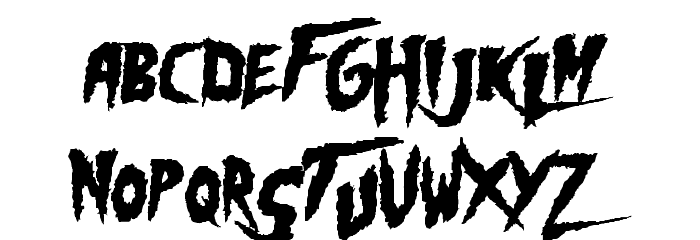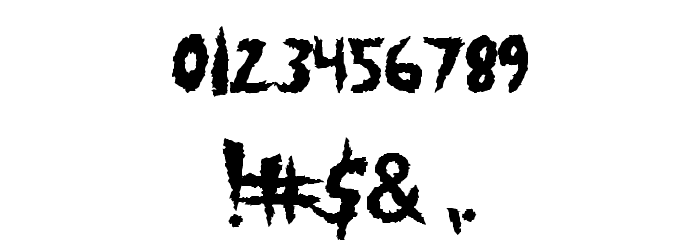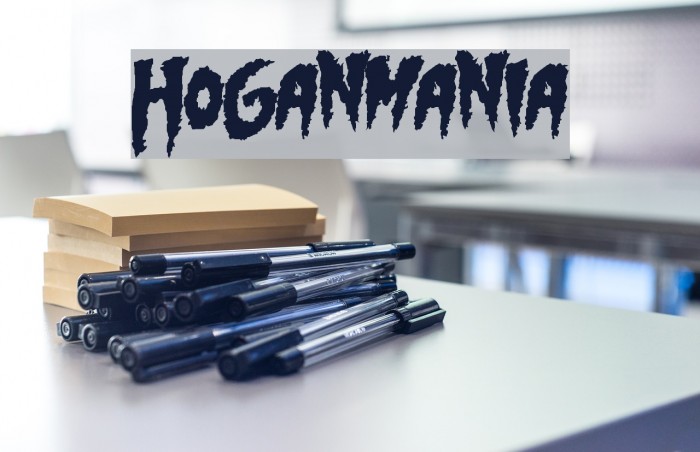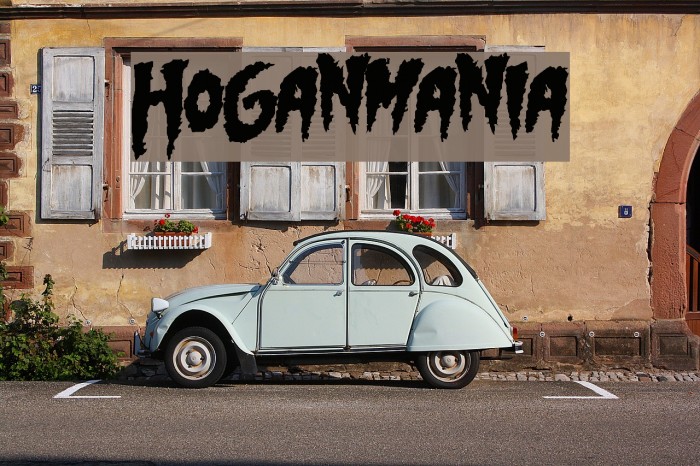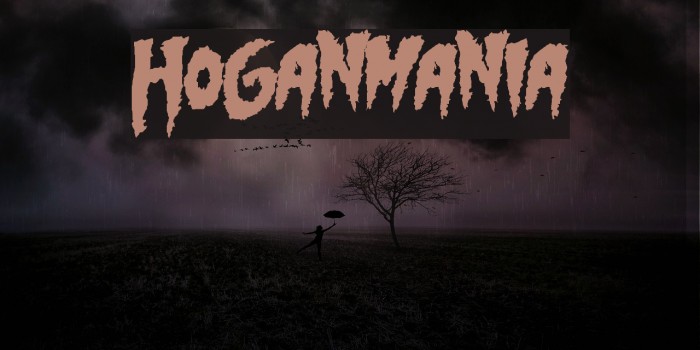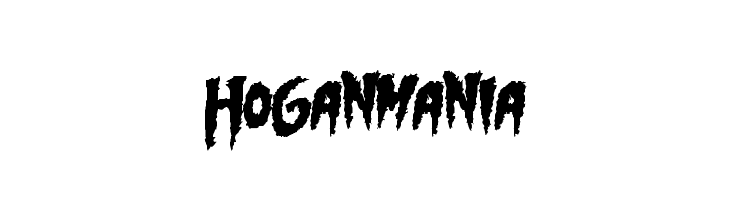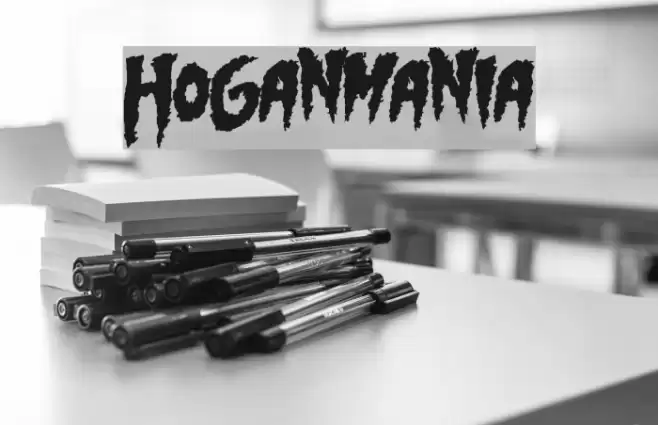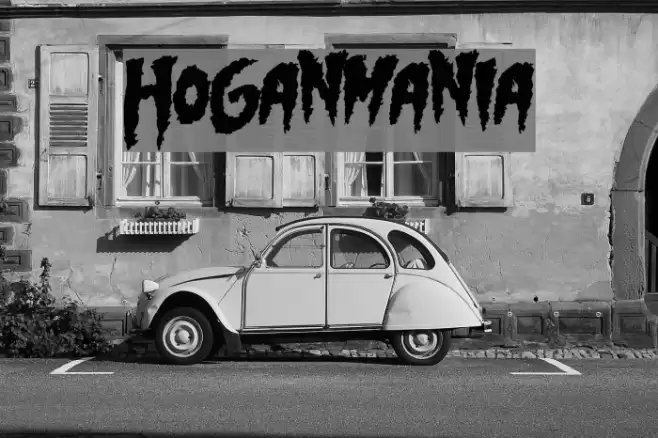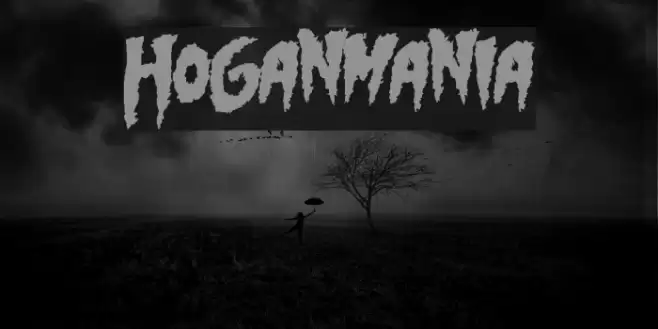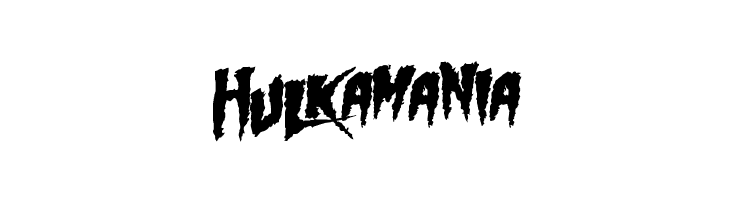
HoganMania Font
This font exudes a bold and energetic presence, characterized by its sharp, jagged edges and dynamic strokes. The letters are designed with a sense of movement and aggression, reminiscent of graffiti or street art styles. Each character is uniquely crafted, with varying stroke thickness that adds to the font's raw and edgy appeal. The uppercase and lowercase letters maintain a consistent style, while the numerals and special characters complement the overall aesthetic. This font is ideal for projects that require a strong, impactful visual statement.
A bold, jagged font with dynamic strokes and a graffiti-like style.
- Font: HoganMania
- Proposed Projects: Perfect for music album covers, sports team logos, event posters, and urban-themed designs.
- Character Spacing: Tight
- Overall Style: Modern, Urban